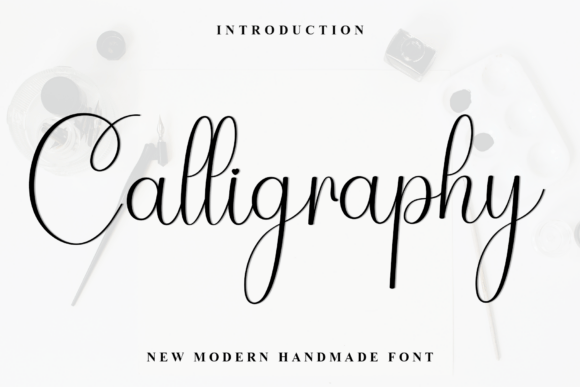
The Beauty of Calligraphy Font: Elevate Your Designs with Elegance
I’ll never forget the time I was working on a wedding invitation project, and my client asked for a font that would make the ceremony feel like a fairytale. I scoured the internet, trying out font after font, but nothing seemed quite right. That was until I stumbled upon Calligraphy Font. Its soft, unique touch and distinctive strokes instantly captured the essence of what I was looking for. In that moment, I knew I’d found something special.
A Personal Review: What I Love and a Few Quirks
As I’ve continued to work with Calligraphy Font, I’ve fallen more and more in love with its versatility and charm. Here are a few things that make it stand out:
- ✨ Unique Character: The font’s soft, flowing lines give it a distinctive personality that’s hard to find elsewhere.
- ✅ Versatility: Whether I’m working on a design project, craft, or creative hobby, Calligraphy Font seems to fit right in.
- 🤔 Occasional Kerning Issues: I’ve noticed that sometimes the spacing between letters can be a bit off, especially when using certain character combinations.
- ⚠️ Limited Support for Non-English Characters: While the font supports a wide range of characters, it may not work as well with non-English languages or special symbols.
The Story Behind Calligraphy Font: A Designer’s Inspiration
Calligraphy Font was inspired by traditional calligraphy art, with a modern twist. The designer aimed to create a font that captures the elegance of handwritten calligraphy while being versatile and easy to use. The result is a beautiful, eye-catching font that’s perfect for a wide range of creative projects.